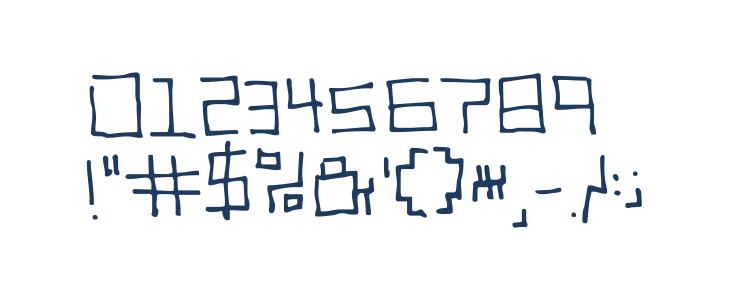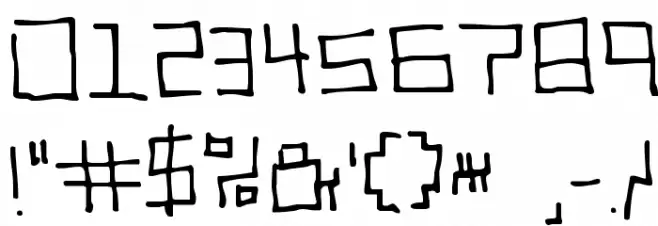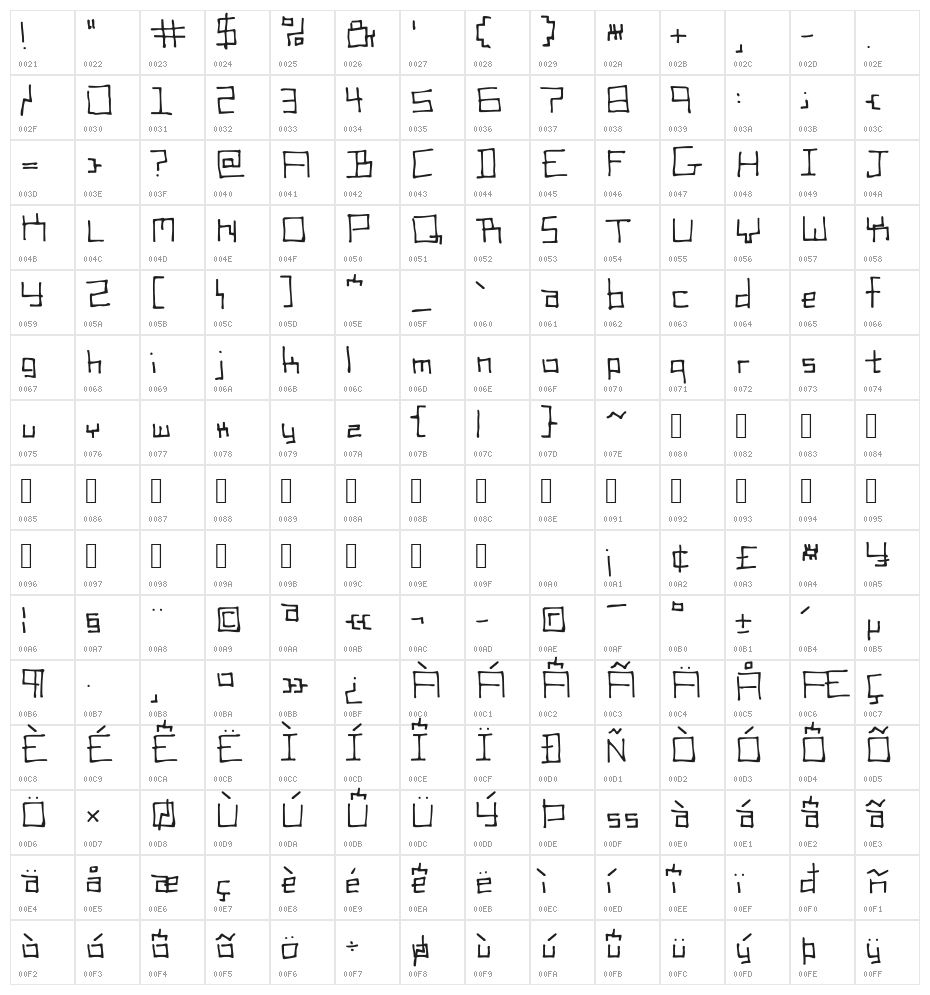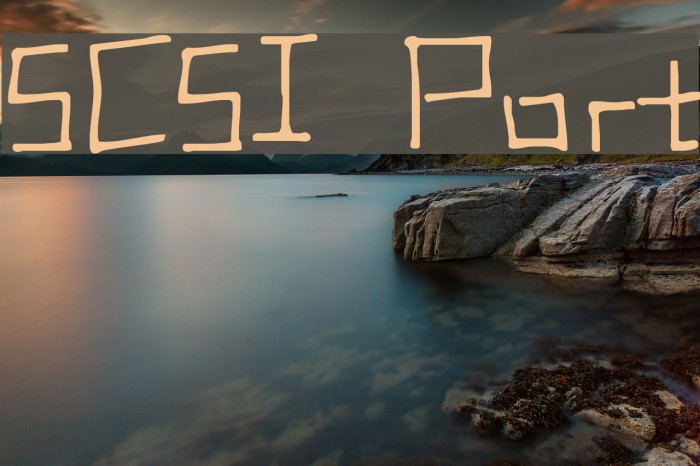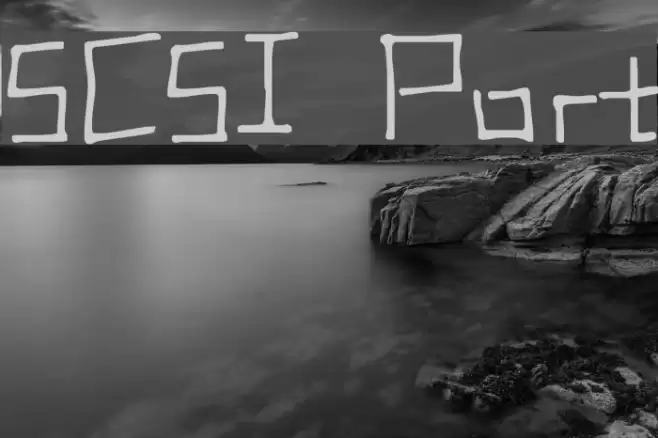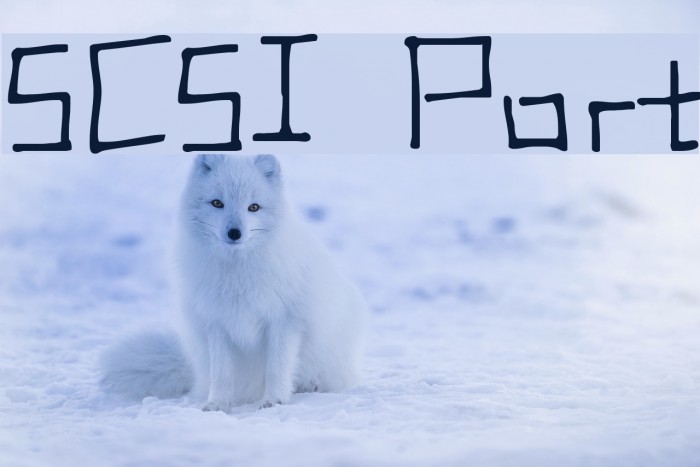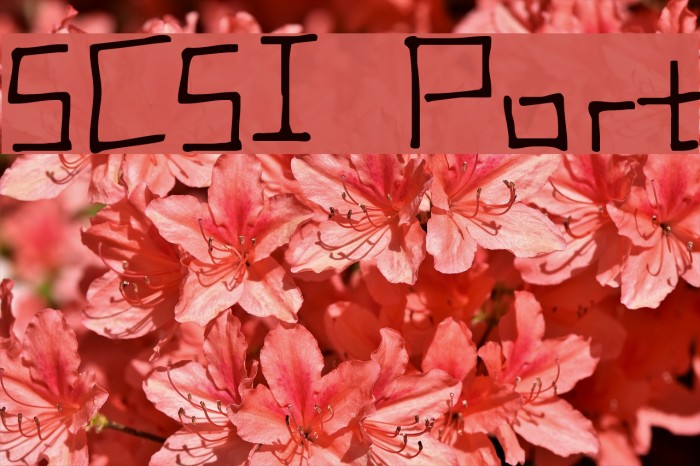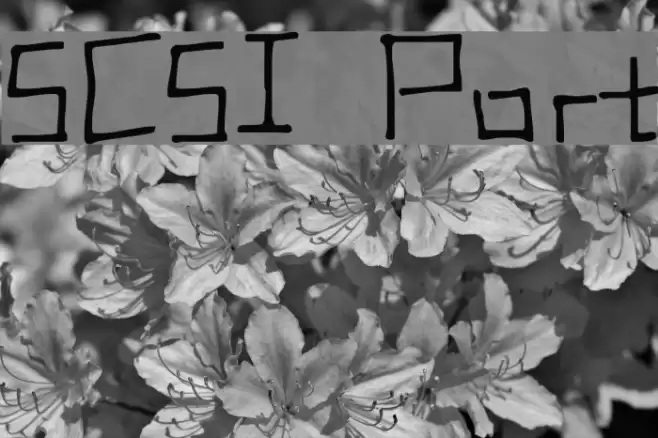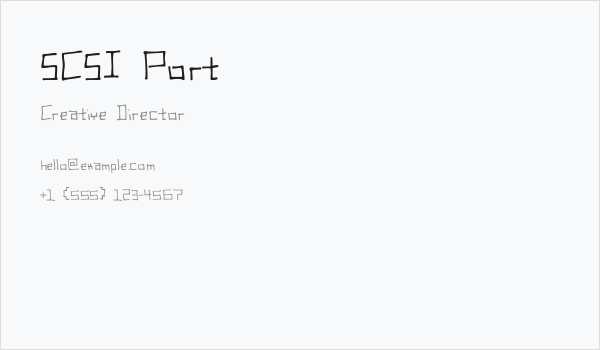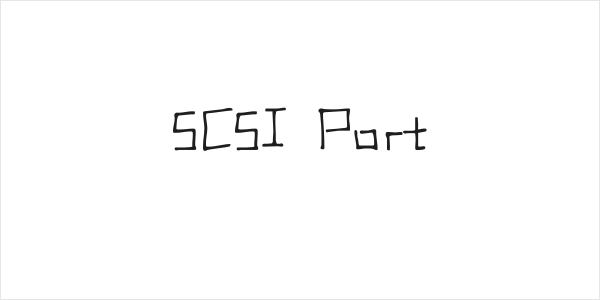
SCSI Port Font
SCSI Port Description
This font features a unique, hand-drawn style with a playful and informal appearance. The characters are slightly irregular, giving it a casual and approachable feel. The uppercase and lowercase letters maintain a consistent height, while the numbers and special characters follow the same quirky design. The strokes are uneven, adding to the font's charm and individuality. This font is ideal for projects that require a personal touch, such as invitations, greeting cards, or creative branding. Its distinctive style makes it stand out, while still being legible and versatile.
| Proposed Projects | Ideal for invitations, greeting cards, creative branding, and personal projects. |